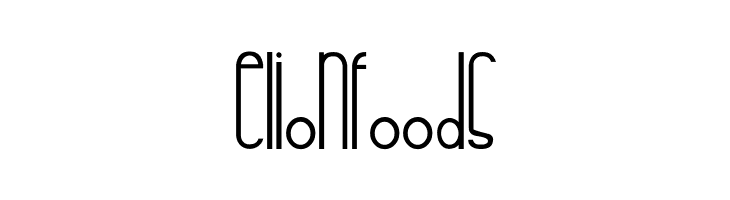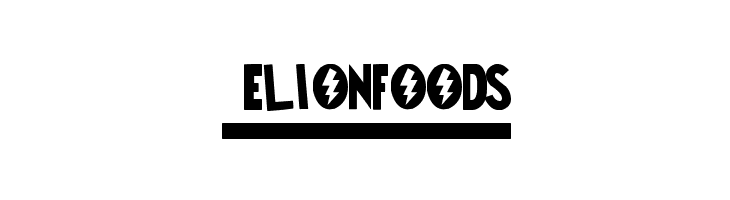
A pixelated, geometric font with a retro digital aesthetic.
A digital, futuristic font with angular, segmented characters.
A futuristic, hollow, segmented font inspired by digital displays.
A modern, digital-inspired italic font with segmented, angular lines.
A digital, segmented font with a futuristic and geometric style.
A bold, brushstroke-style font with dynamic, hand-painted characteristics.
A bold, geometric typeface with strong, uniform strokes and minimal contrast.
A bold, modern font with tall, narrow characters and a strong visual impact.
A modern, sleek font with tall, narrow characters and minimal ornamentation.
A geometric, modern font with clean lines and uniform stroke width.
A geometric, modern font with thin, elongated letterforms and a minimalist style.
A whimsical and decorative font with playful swirls and curls.
A bold, jagged font with a distressed, rebellious style.
An ornate, medieval-inspired font with dramatic flourishes and bold strokes.
A bold, dynamic font with sharp angles and a lightning bolt motif.
A rugged, distressed font with jagged edges and a chaotic, hand-drawn style.
A dynamic, hand-drawn script font with bold, sweeping strokes and artistic flair.
A bold, brush-style font with dynamic, expressive strokes.
An elegant, artistic script font with dynamic, flowing strokes and ornate uppercase letters.
A playful, heart-themed font perfect for romantic and creative projects.
A rugged, distressed font with jagged edges and an aggressive style.
A decorative, calligraphic script font with intricate swirls and bold strokes.
A sleek, futuristic italic font with sharp angles and smooth curves.
An ornate, decorative font with elegant flourishes and calligraphic elements.
A dynamic and elegant italic font with a stylish slant and moderate contrast.